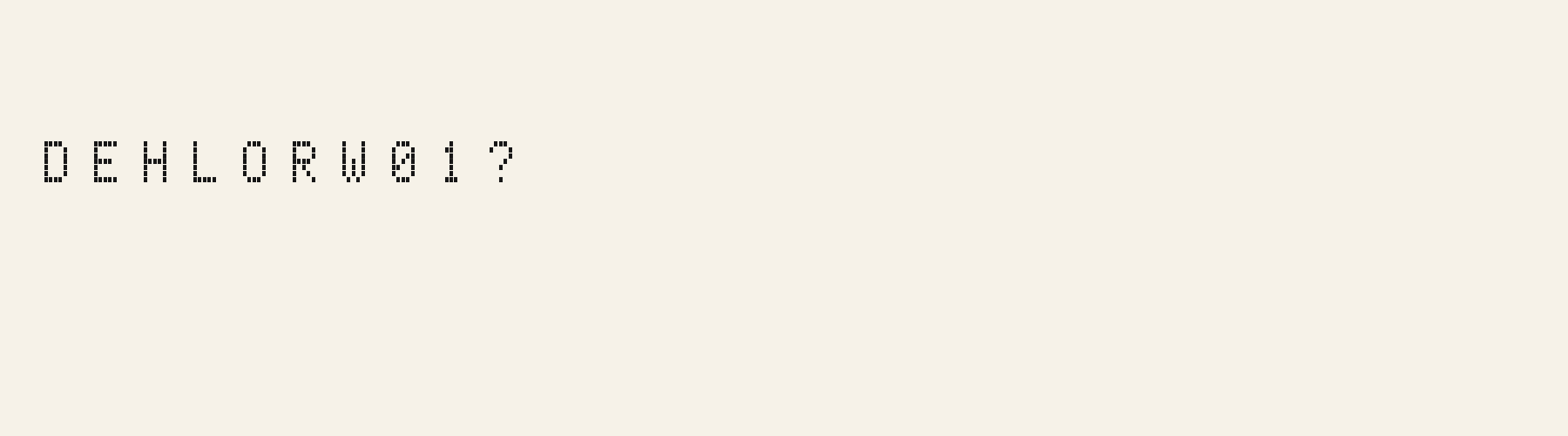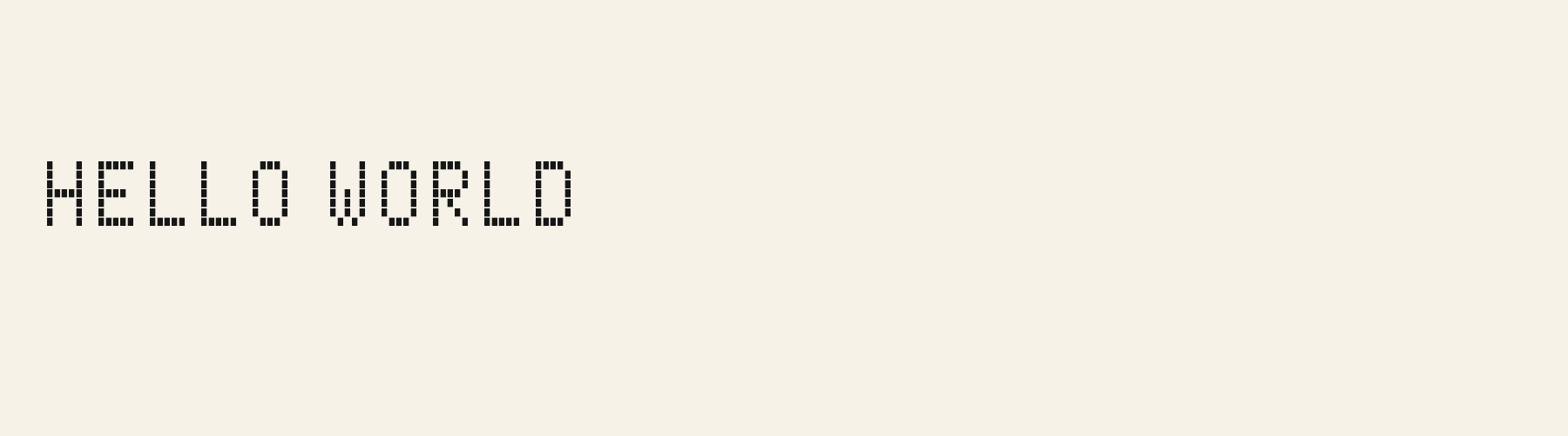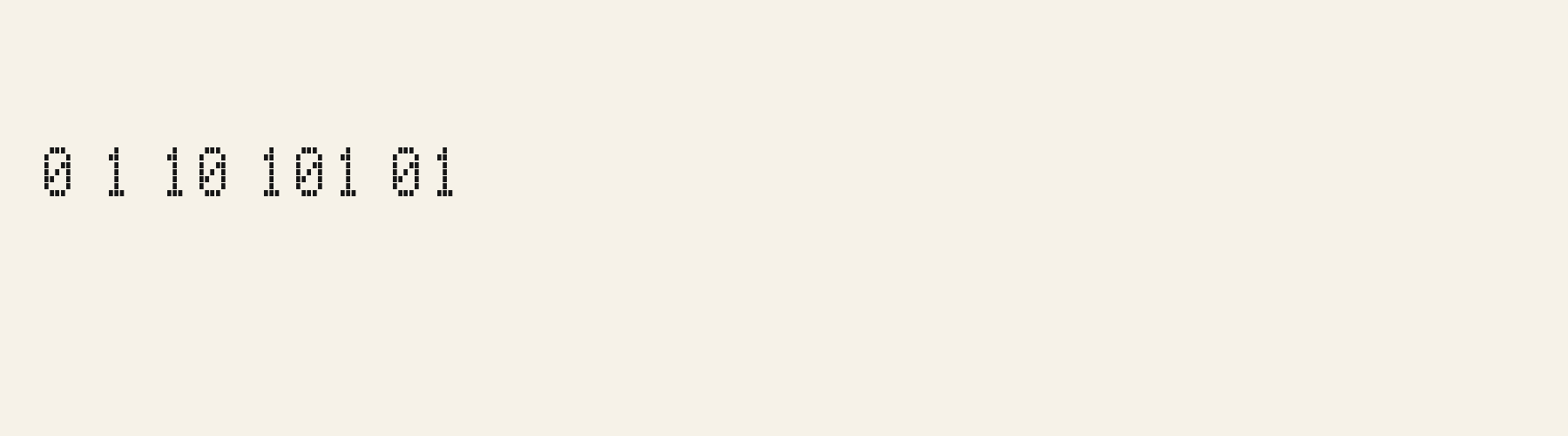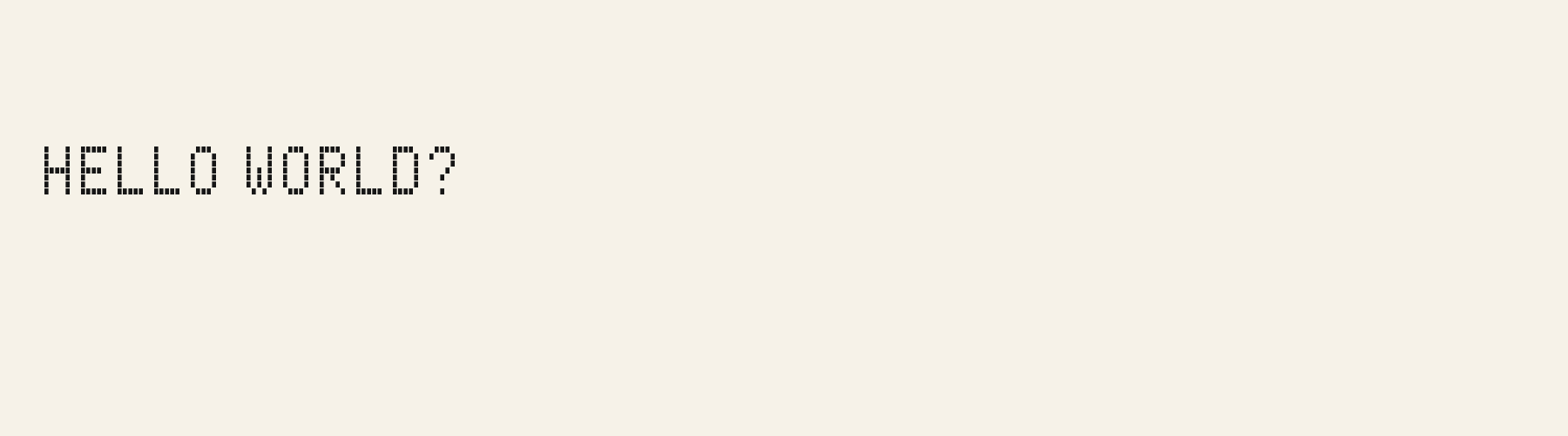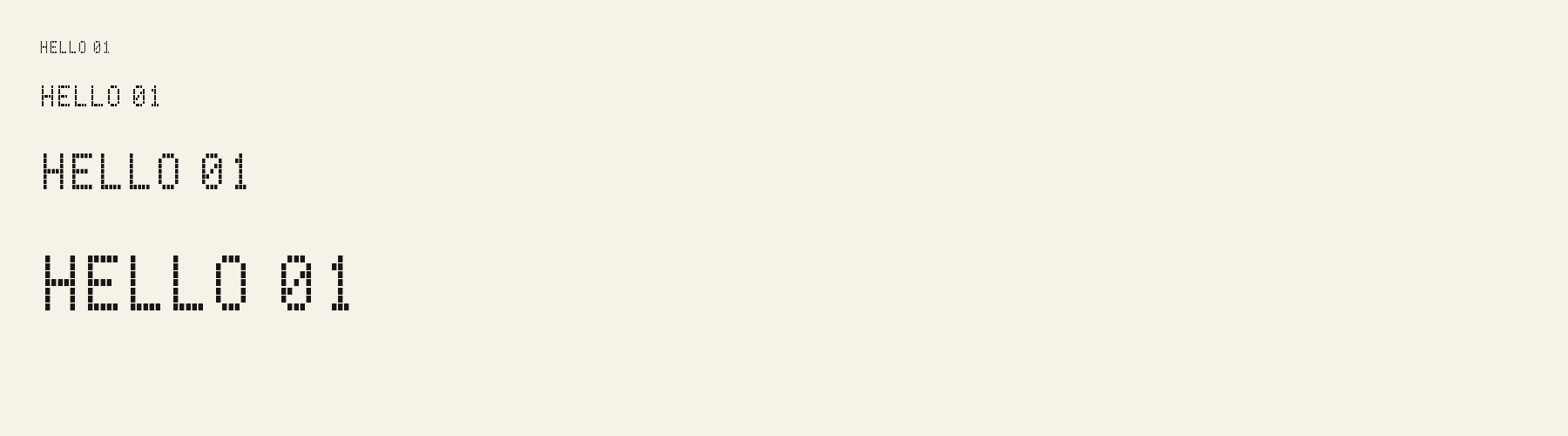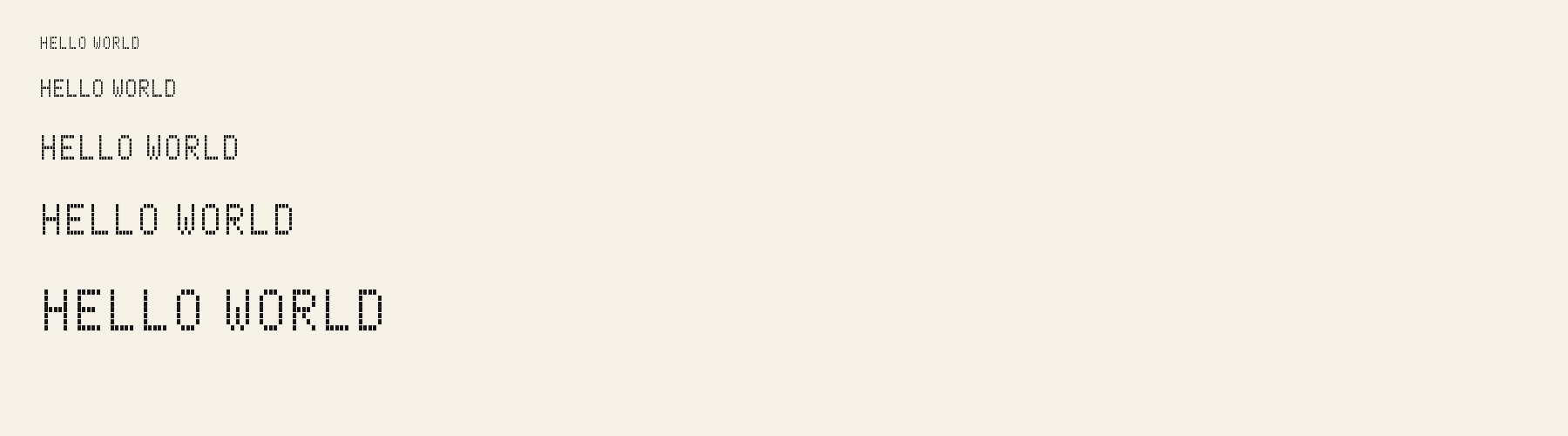
Pixel Scoreboard Narrow arranges tall rectangular marks into slender, upright letters with a restrained electronic feel.
Pixel Scoreboard Narrow arranges tall rectangular marks into slender, upright letters with a restrained electronic feel. The O has straight sides and stepped corners, forming an elongated loop rather than a smooth curve. The R carries a compact upper bowl and a leg that descends through offset blocks. The W uses straight outer stems and a shorter central stroke, with staggered blocks defining its lower turns. Small gaps interrupt every stroke, yet the closely stacked marks give the verticals a firm rhythm. Short horizontal bars and generous interior openings keep the texture spare and orderly.
Check the stepped R leg, the W valleys, and the distinction between O and zero in your actual wording. Inspect whether the rectangular marks remain separate after scaling or export. These specimens show Latin forms; assess other scripts separately with verified glyph samples.
Try this face for short headings or score labels, with a plain sans serif for explanations and supporting text. Its segmented stems and elongated loops provide the display texture, while continuous strokes in the companion can make longer passages feel calmer.
Compare smaller and larger previews to inspect the gaps between the tall rectangular marks. At the larger setting, the separate blocks and stepped corners become more prominent; check whether those details stay distinct in your intended layout.
Pixel Scoreboard Narrow uses tall rectangular marks with small vertical gaps, giving the stems a nearly continuous rhythm. Its slender letters keep this shared phrase compact and give the stepped R leg a crisp, angular character.
Pixel Lcd Segment uses short horizontal dashes with rounded ends and more open vertical gaps. Its broader letter shapes spread the shared phrase farther across the line, emphasizing the individual marks throughout the stems and bowls.
The lowercase is as tall as the capitals: its x-height measures 100% of the cap height, level with the tallest of the 13 pixel fonts. Ascenders on b, d, h, k and l line up with the capitals (100% of their height), and g, j, p, q and y barely drop below the baseline. Its letters are of average width for pixel fonts: an average lowercase letter, spacing included, is 78.9% as wide as the capitals are tall (an average capital, 78.9%), within 2.7% of the median. The o is an upright oval, 0.54 times as wide as it is tall, and every capital has the same width. O stands exactly as tall as H and sits on the baseline, with no overshoot.
The letters stand upright, leaning less than 2.5° either way. Vertical stems measure 8.5% of the cap height, the lightest of all 7 pixel fonts. Ink covers 20.6% of each lowercase letter's box (its advance width by the cap height), lighter than 10 of the 12 other pixel fonts. The contrast is reversed: the tops and bottoms of o and O are 1.5 times as thick as their sides.
Its 159 characters include 116 Latin letters, plus 43 figures, punctuation marks and symbols; 64 of the Latin letters are accented or special forms beyond A to Z. The word space measures 41.1% of the cap height, and the blank space either side of a lowercase letter takes up 31.8% of its width. The font carries no kerning, so spacing comes from each letter’s own side bearings. All ten figures share one width, so columns of numbers line up.